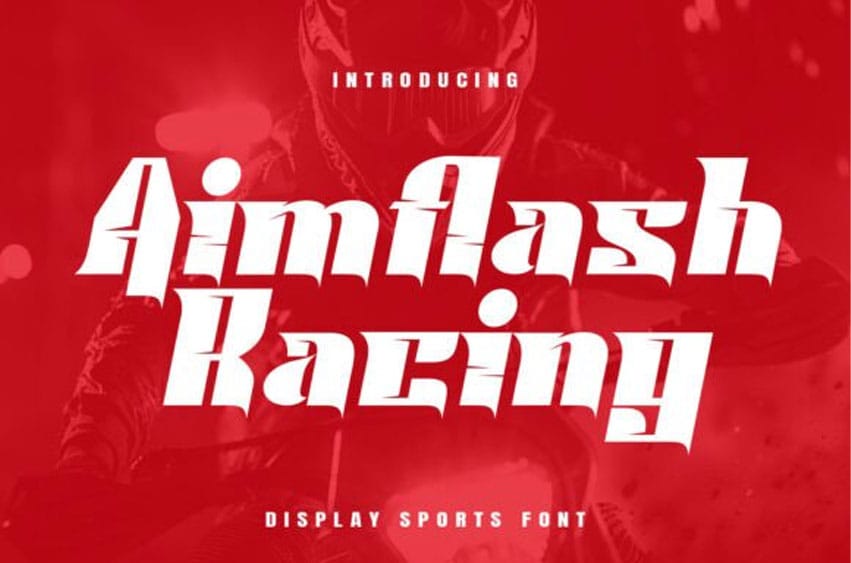
Aimflash Font Charge your designs with the high-octane punch of Aimflash, a striking display font engineered to add a sizzling touch of speed, potency, and vigor.
With its roots entrenched in the thrilling universe of motorsports, Aimflash marries jaunty angles and lightning-fast lines, boasting an assertive, gutsy posture that positions it as the ideal choice for racing banners, auto identity branding, esports insignia, and headlines pulsating with a rush of adrenaline. This bold and dynamic typeface isn’t just a font; it’s a call to push boundaries.